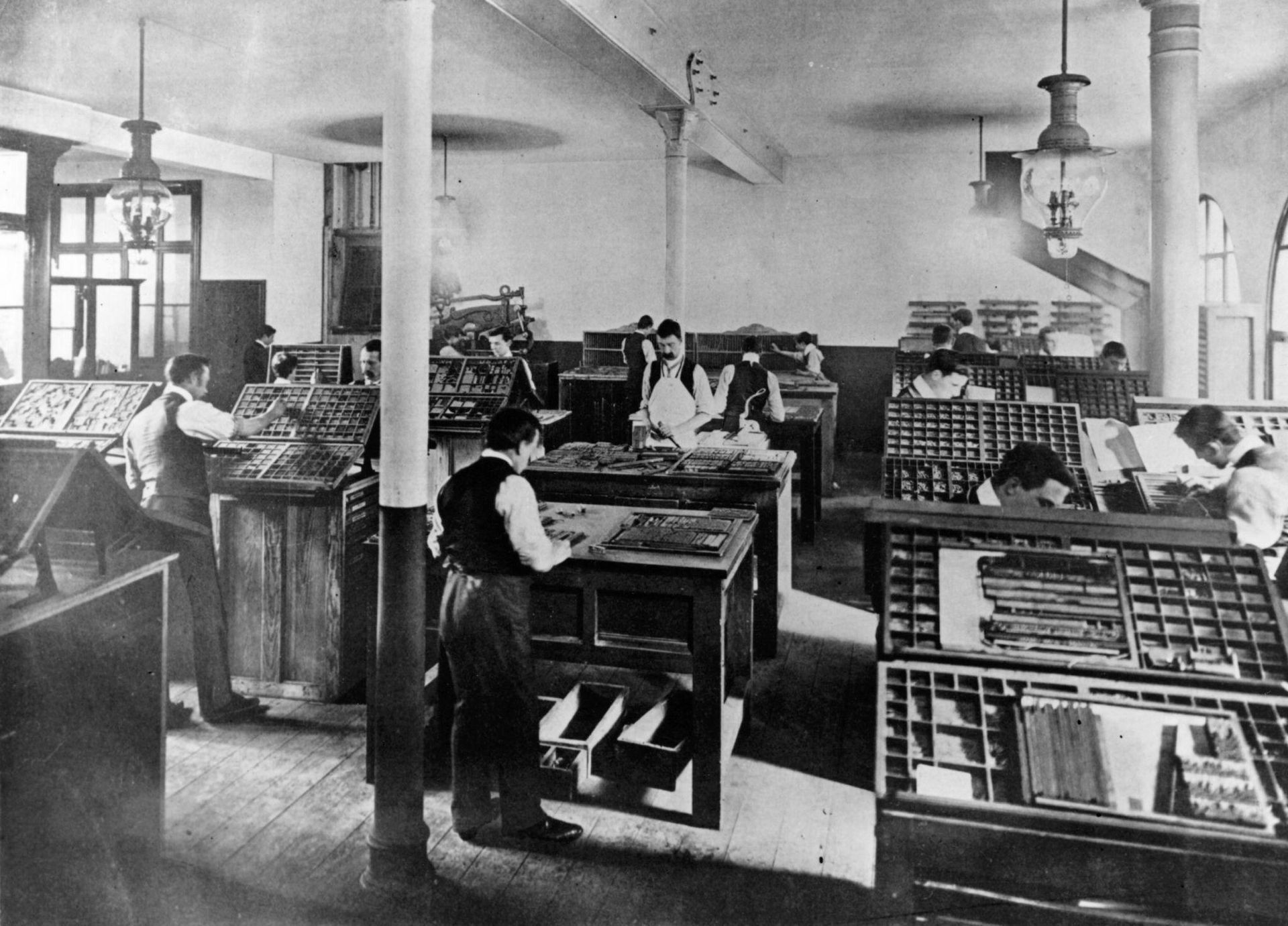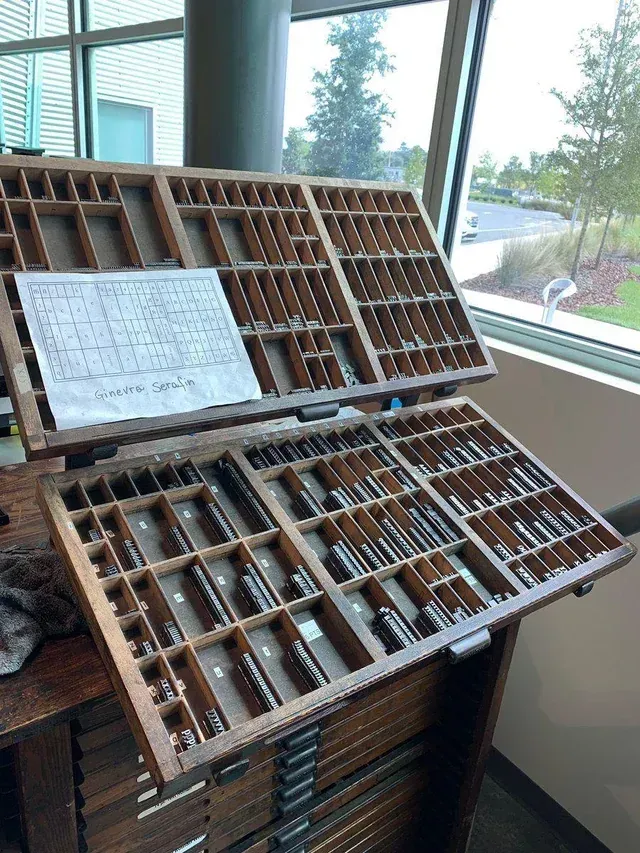
Compositors & Type: Origin and Use of “Uppercase” and “Lowercase”
Carl Shank, CARE Typography
Most everyone knows what “uppercase” and “lowercase” letters are. They refer, of course, to our “capital” letters and our “regular” small print. But not many know why or how they came to be known by such terminology. The answer is found in the history and development of typography and printing.
“Case” here doesn’t refer to “circumstance” or “condition.” It refers to the wooden trays used to store metal letters, the top case for capital letters (“uppercase”) and the lower case for small letters. Each tray was divided into compartments to hold the type. The lower case also held the punctuation marks and other pieces of type, like “spacers.” The type case was a shallow wooden tray divided into compartments of various sizes. There were about thirty styles of type cases, and some of these were made in different sizes.[1] The most common, or standard, size was 32¼ by 16 inches, outside dimensions, and ⅛ inches deep, inside. One of three traditional plans or schemes for such type cases involved (1) all characters in one case; (2) capitals, small capitals and a few other characters in one case; or (3) the small letters, figures, points, spaces and quads in another case. The two latter cases formed a pair and would nearly always be used together.(See Images)
Hand compositors (or “swifts”) would take individual letters, spaces and punctuation marks or other characters from the type case and place them in what was called a composing “stick” in such a manner that when the type characters are properly assembled, they form words, sentences and paragraphs. The work of the press room compositor was divided into two fundamental operations — the “setting” of type and the “unsetting” of type. The former was called composition and the latter, distribution.
A visual example of such typesetting can be seen in some of the episodes of The Waltons, an American historical dramatelevision series about a family in rural western Virginia in the Appalachian/Blue Ridge mountains chain, during the economic hardships and mass unemployment of the Great Depression in the 1930s and the subsequent United State home front during World War II in the 1940s. The series aired from 1972 to 1981. John-Boy, a leading character of the series, opened a print shop in a shed by the family home with an old-fashioned mechanical printer that required setting cold metal type from a type case. His brother was the compositor while John-Boy ran the printing machine.
Composition is the act of transferring type from the case to the composing stick, in an orderly, systematic, and uniform manner, in such a way as to form words, lines, sentences, paragraphs, pages, or other desired divisions. Distribution is the act of taking the types apart and putting them back into the case in such a manner that each character will be dropped, without injury, into its respective box, the spaces and quads into their places, and all other used materials into their receptacles.
Speed and accuracy in the setting of type became crucially important to printing. Good spacing became a matter of pride with the compositor. It was not difficult to acquire the habit of evenly and rapidly spacing out a line with a tested practical system. With some study and practice, the omitting of useless motions would in a short time become second nature. Not only would the compositor’s work be done correctly, but his output would be greatly increased by making it unnecessary to go over the matter again to revise bad spacing and other errors.
Typesetters used to hold races with monetary rewards. In the late 19th century, crowds packed into theaters and dime museums to watch elite compositors compete to set tiny metal letters by hand at astonishing speeds. Their performance was measured in ems, a unit based on the width of the type’s capital letter “M.” Some competitions offered cash prizes as high as $1,000 (about $30,000 today) — roughly half a year’s wages for many workers at the time. Among the era’s celebrity racers were William C. Barnes, Alex Duguid, and George “The Velocipede” Arensberg.
Barnes, along with Joseph W. McCann and Alexander Duguid, published A Collation of Facts Related to Fast Typesetting in 1887. The book documented competitive typesetting contests, records achieved by leading compositors, biographies of famous “swift compositors,” and practical advice and techniques for typesetters. The work was significant in the history of printing because it captures the final high point of hand composition just before mechanical systems such as the Linotype transformed the printing industry.
William Barnes represented a view of typography that emphasized accuracy, or setting type with minimal errors, efficiency, maximizing output while maintaining quality, readability, understanding how type should be arranged on the page, and professional discipline, treating typography as a skilled trade rather than merely factory labor.
His era valued the compositor's eye for spacing, alignment, justification, and page makeup, skills that today are largely handled by software.
For students of typography, Barnes provides insight into the daily work of nineteenth-century printers, the culture of composing rooms, and the transition from handcraft to machine production.
Alexander (Alex) Duguid was a prominent nineteenth-century American printer, compositor, editor, and typographic writer whose work helped document and preserve the traditions of hand typesetting during a period of rapid technological change. Although not a typeface designer, he was an important voice in the professional printing community. Duguid worked as a printer and compositor, a trade journalist, a historian of printing, and an advocate for professional standards in typography.